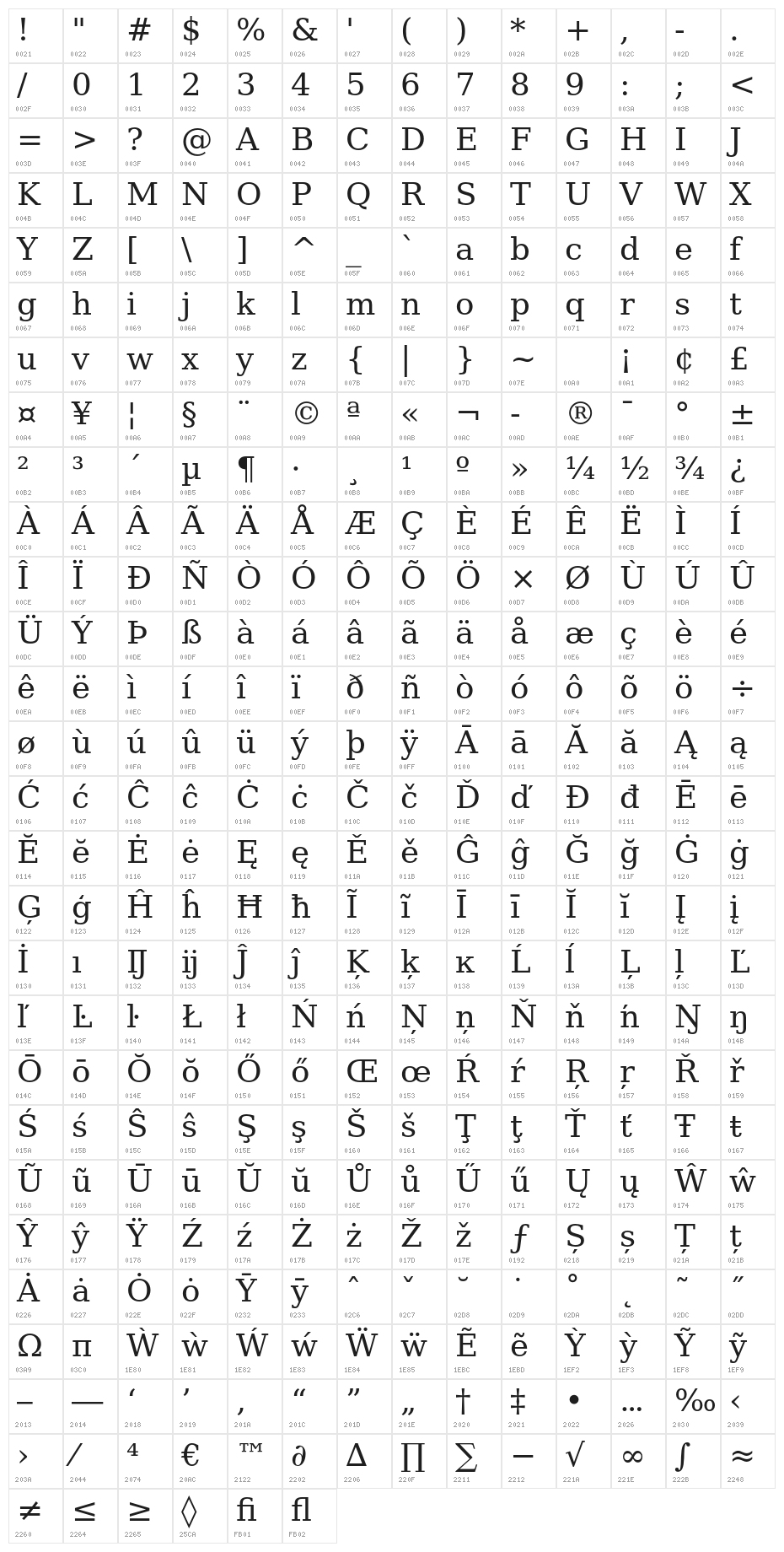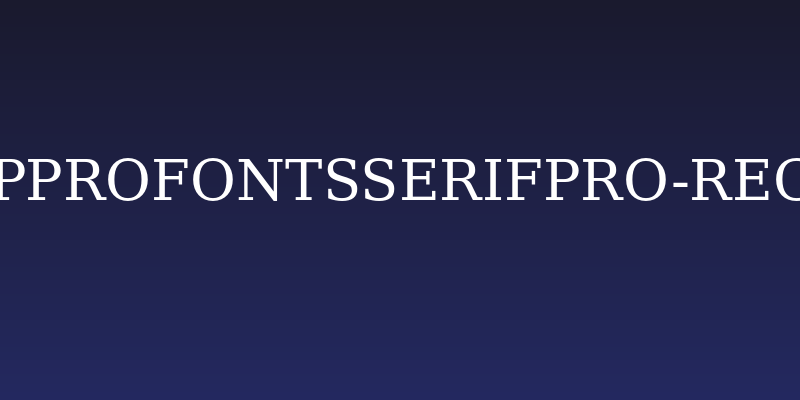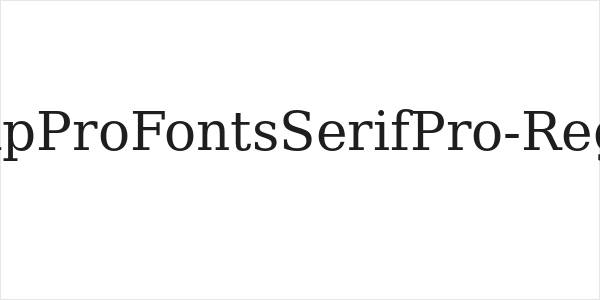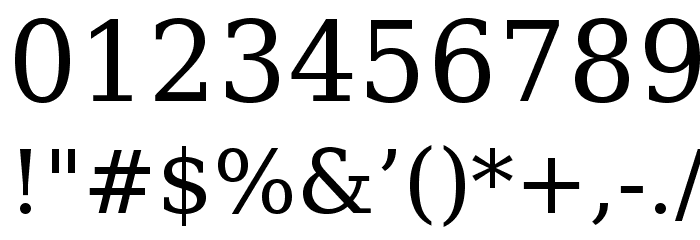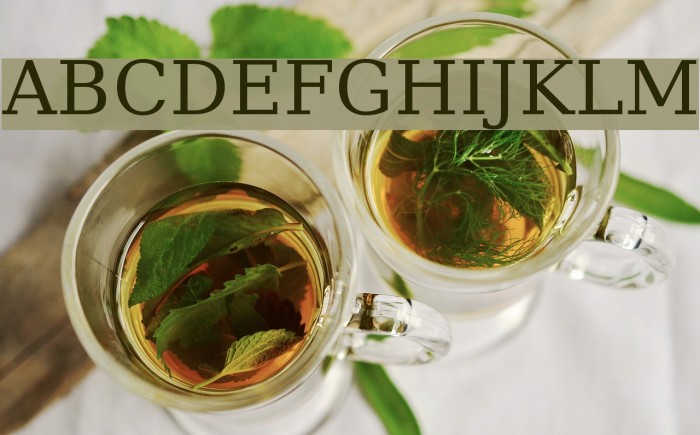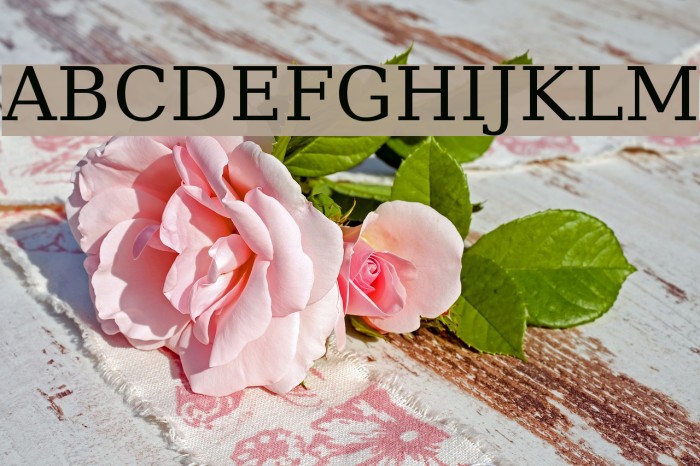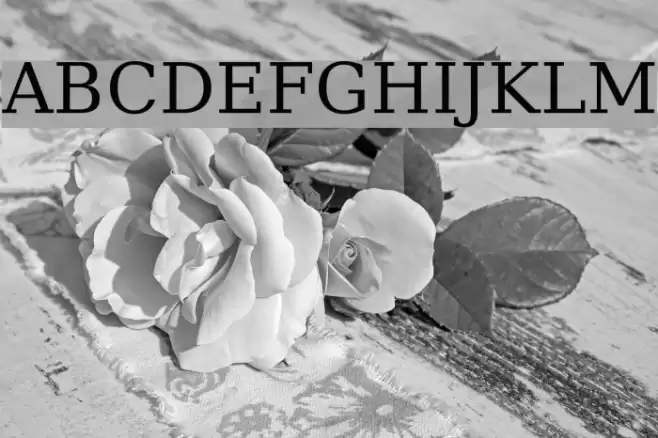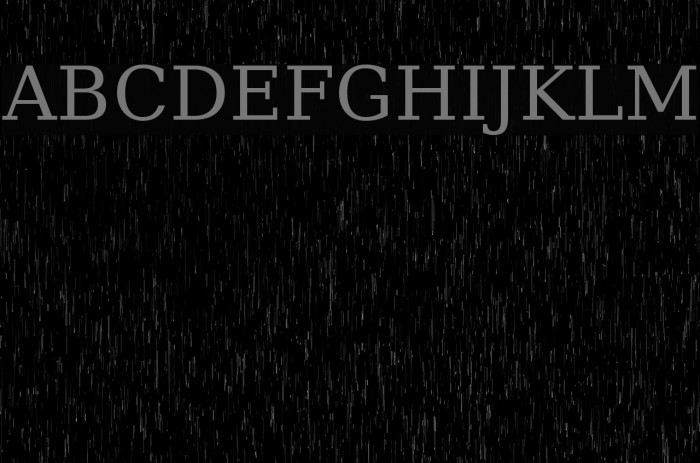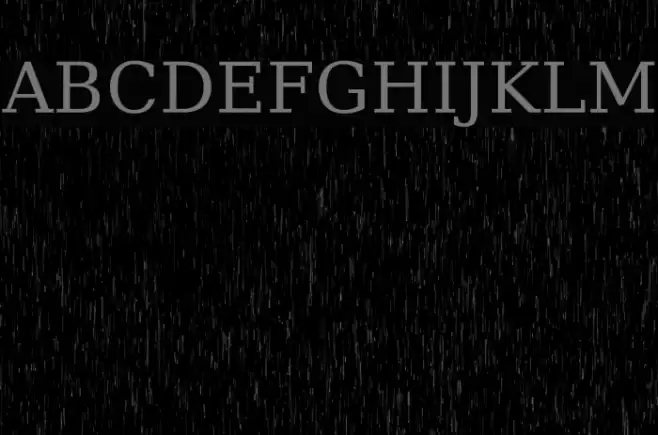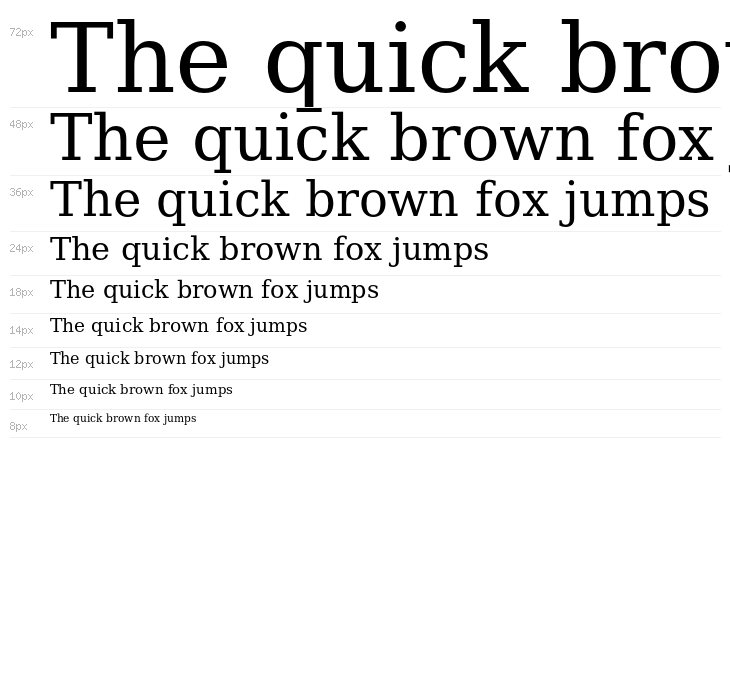
CheapProFontsSerifPro-Regular Font
CheapProFontsSerifPro-Regular Description
This typeface embodies a classic serif style with a modern twist. The characters are well-defined with a medium contrast between thick and thin strokes, offering a balanced and readable appearance. The serifs are pronounced yet not overly ornate, providing a touch of elegance without compromising legibility. The uppercase letters are bold and commanding, while the lowercase letters maintain a consistent flow, making it suitable for both headlines and body text. The numerals are clear and distinct, ensuring easy readability in various contexts. Special characters are included, enhancing its versatility for diverse applications.
| Overall Style | Classic |
| Use Case | Headlines, Body text, Editorial design |
| Proposed Projects | Ideal for editorial design, book covers, formal invitations, and branding materials requiring a touch of sophistication. |